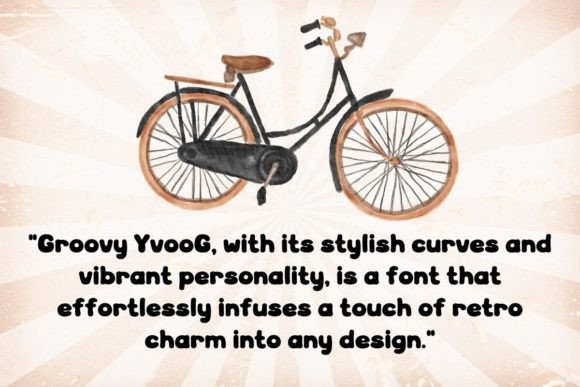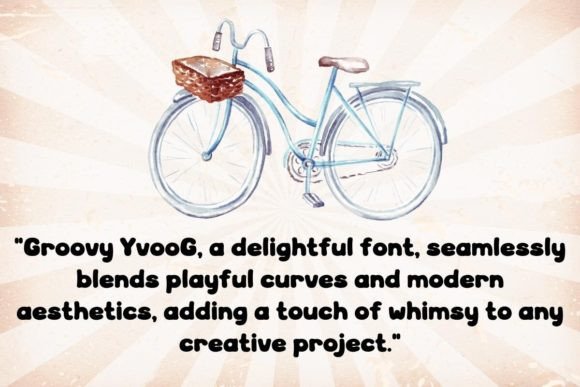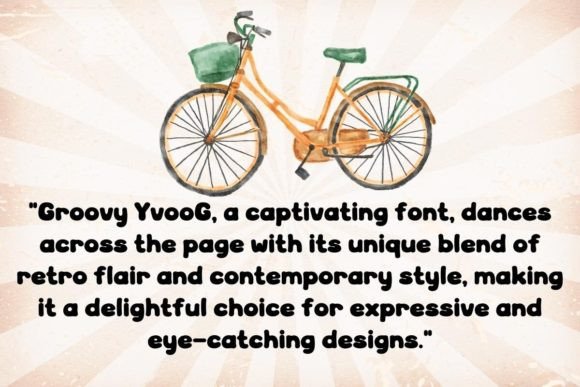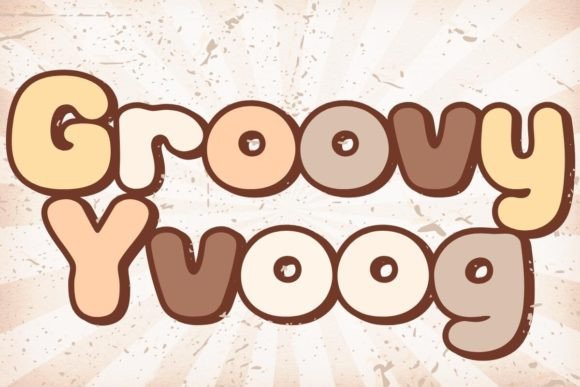
Groovy Yvoog Font: The Perfect Blend of Elegance and Playfulness
Groovy YvooG is an enchanting font that exudes a harmonious blend of elegance and playfulness, casting a captivating spell on any written expression. This unique font has gained popularity among designers and crafters due to its distinctive and versatile style, making it an ideal choice for various creative projects.
The Origins of Groovy Yvoog Font
The Groovy Yvoog font was designed to provide a fresh and exciting alternative to traditional fonts. Its creators aimed to craft a typeface that would convey a sense of fun and sophistication, making it suitable for a wide range of applications. The font’s distinctive features, such as its rounded edges and flowing lines, give it a unique and captivating appearance.
Key Features of Groovy Yvoog Font
Groovy Yvoog font boasts several key features that make it stand out from other fonts:
- Unique letterforms: The font’s letters have a distinctive, hand-drawn feel, with rounded edges and flowing lines that give it a playful and elegant appearance.
- Versatile style: Groovy Yvoog font can be used in various contexts, from formal to informal, making it an excellent choice for a wide range of creative projects.
- Easy to read: Despite its unique style, the font remains highly legible, ensuring that your message is conveyed clearly and effectively.
Uses of Groovy Yvoog Font
Groovy Yvoog font is an excellent choice for various creative projects, including:
- Branding and logos: The font’s unique style makes it an excellent choice for creating memorable and eye-catching logos.
- Invitations and greeting cards: Groovy Yvoog font adds a touch of elegance and playfulness to invitations, greeting cards, and other paper crafts.
- Digital media: The font is also suitable for digital media, including social media graphics, blog posts, and website headers.
Tips for Using Groovy Yvoog Font
To get the most out of Groovy Yvoog font, consider the following tips:
- Pair it with complementary fonts: Combine Groovy Yvoog font with other fonts to create a visually appealing contrast.
- Use it in moderation: While Groovy Yvoog font is captivating, it’s essential to use it in moderation to avoid overwhelming your audience.
- Experiment with colors and textures: The font’s versatility allows you to experiment with various colors and textures to create a unique look.
Groovy Yvoog font is an enchanting and versatile typeface that offers a perfect blend of elegance and playfulness. Its unique features, combined with its ease of use and versatility, make it an excellent choice for designers and crafters looking to add a touch of magic to their creative projects. Whether you’re working on branding, invitations, or digital media, Groovy Yvoog font is sure to cast a captivating spell on your audience.